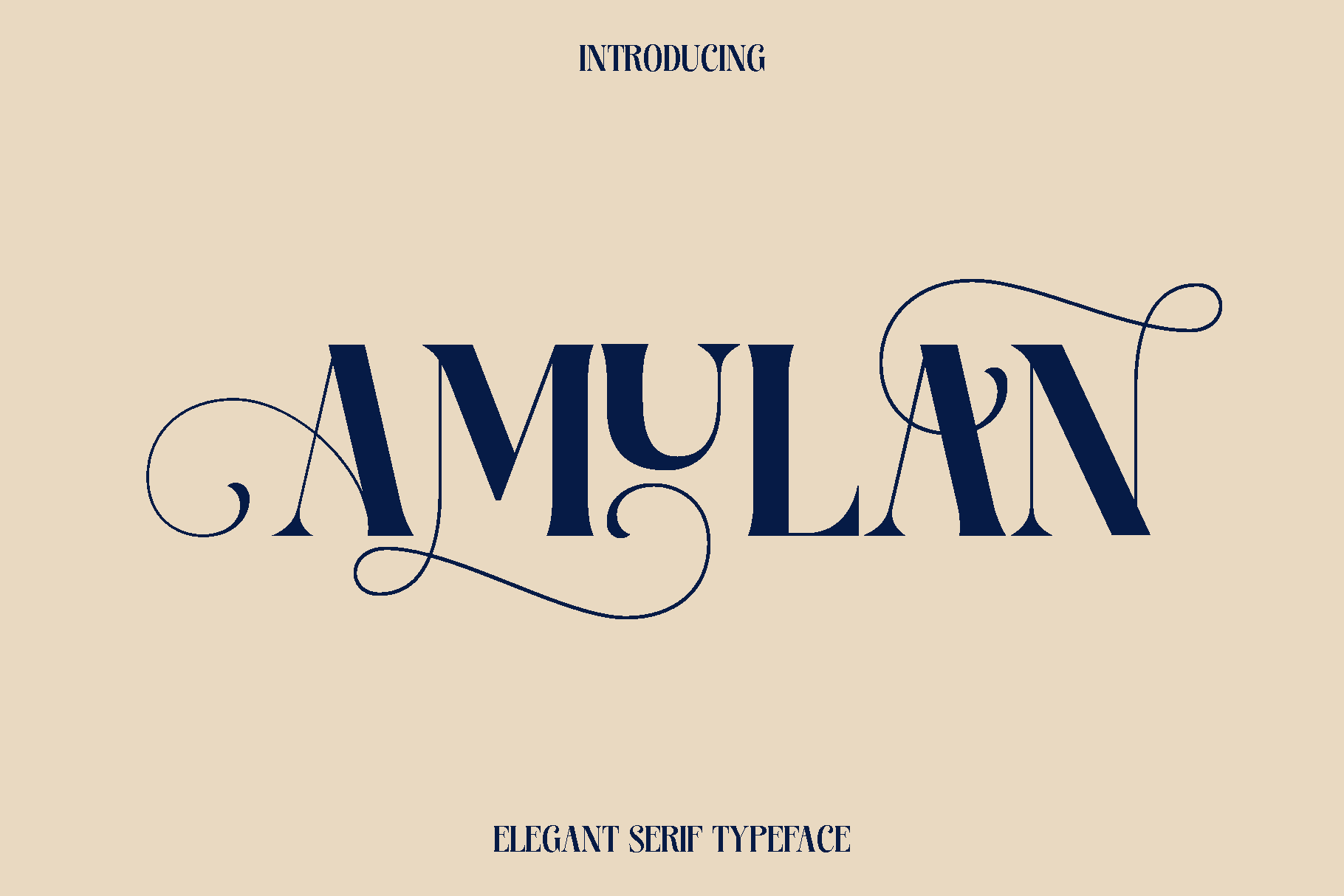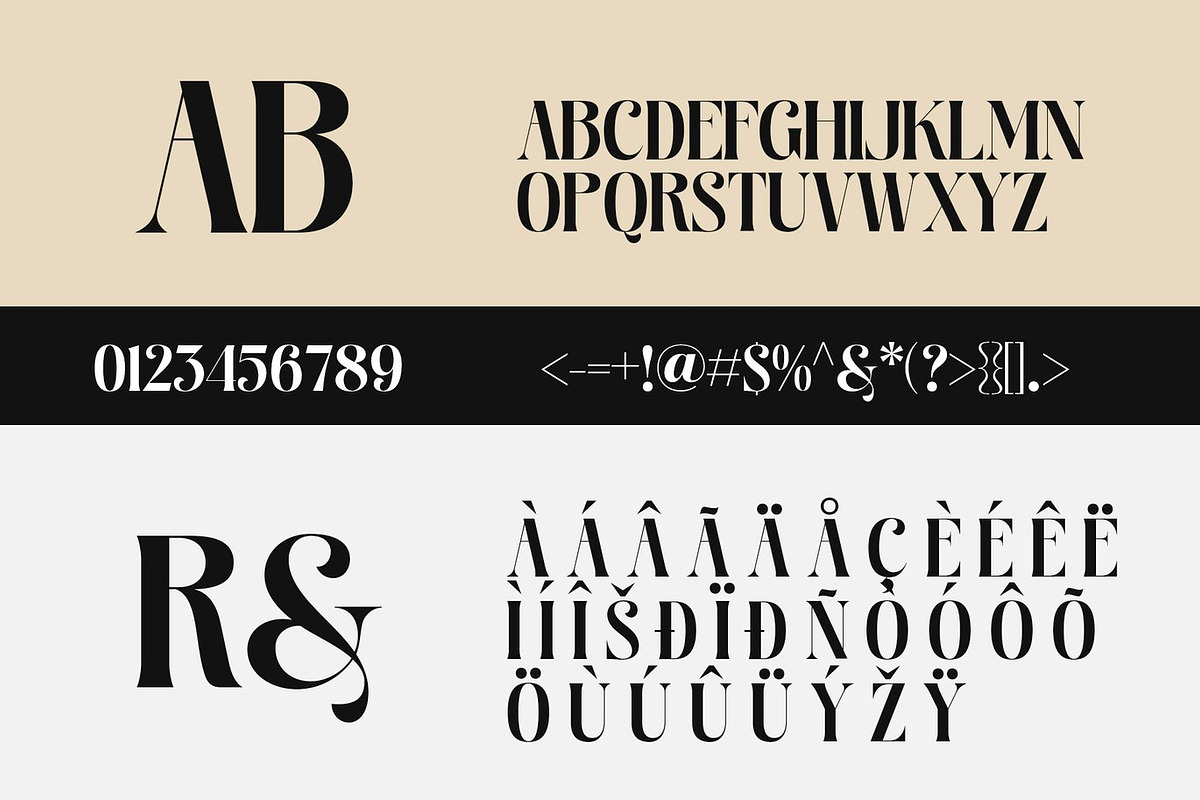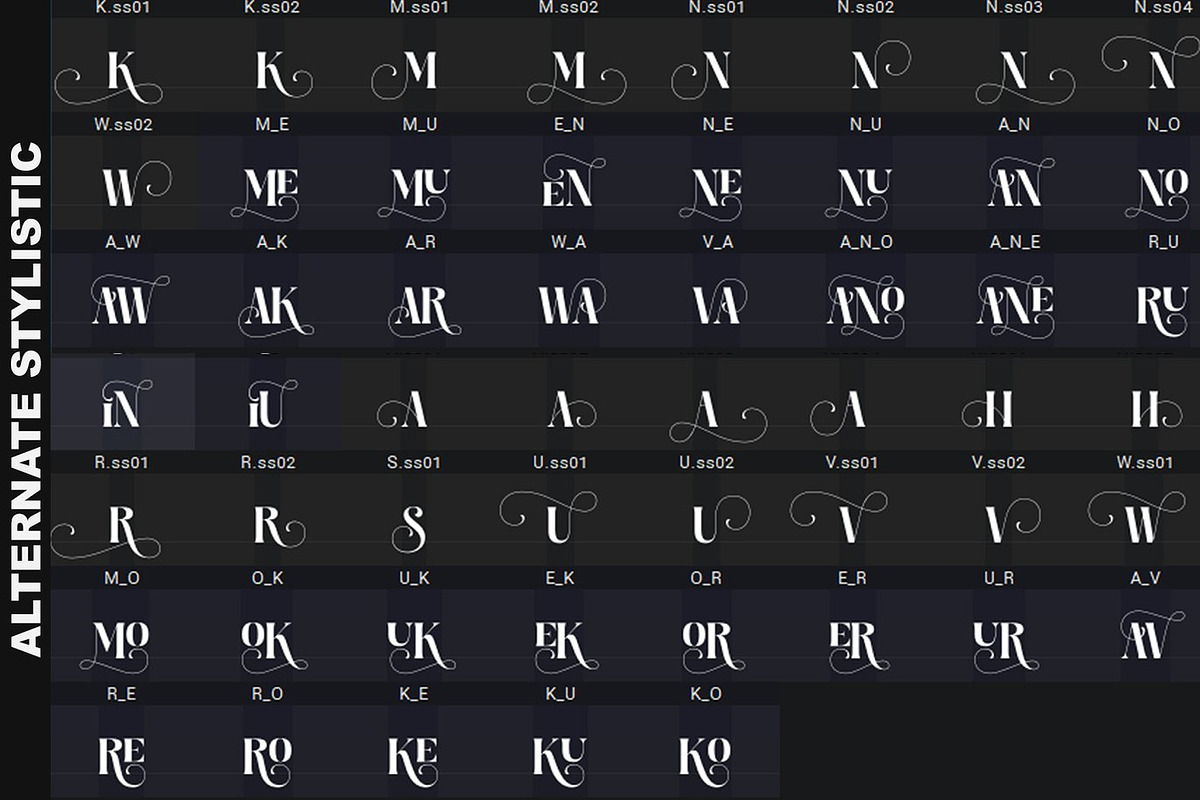
Amulan - Elegant Serif Typeface
Amulan is a thoughtfully crafted typeface designed to bring clarity, balance, and modern style to a wide range of creative projects. Built with clean forms and carefully refined proportions, Amulan carries a timeless character that feels both professional and approachable. Its design focuses on readability while maintaining a distinctive personality, making it suitable for designers who want flexibility without sacrificing visual appeal.
Amulan shines across both print and digital environments. From book layouts and magazine spreads to branding, logos, photography overlays, and blog headers, this font adapts effortlessly to different creative needs. It works beautifully in quotes, posters, and advertising materials where clear communication and elegant presentation are essential. The smooth rhythm of its letterforms ensures your content feels polished and engaging at any size.
With its functional structure and versatile style, Amulan is perfect for projects that require a dependable and stylish typographic voice. Whether you are building a brand identity or crafting editorial content, Amulan delivers a clean and cohesive look that enhances readability while adding subtle sophistication.
Amulan Font Features:
• Uppercase and lowercase characters
• Numerals and functional glyphs
• Multilingual support
Amulan is an excellent addition to any designer’s toolkit, offering reliability, versatility, and a modern aesthetic that elevates everyday typography.